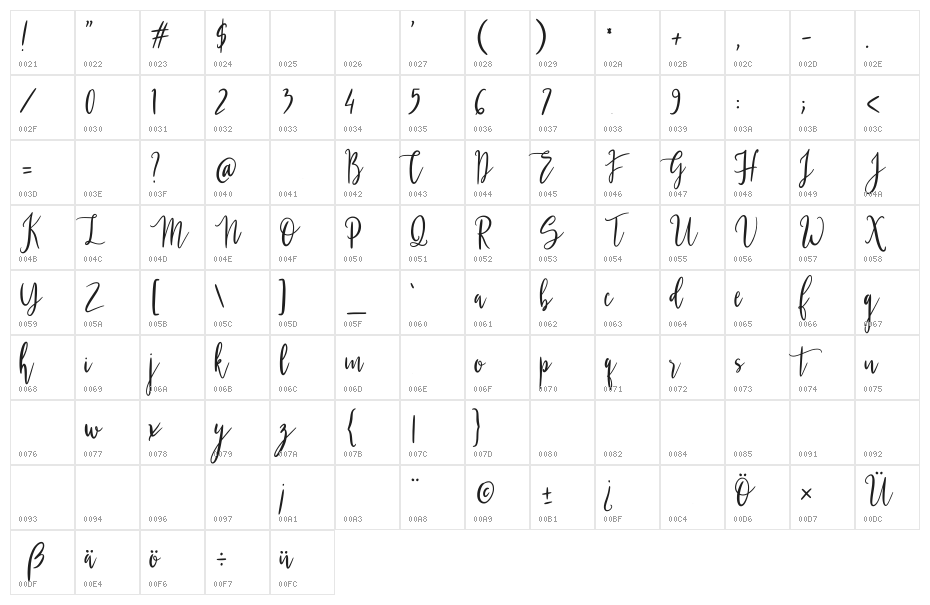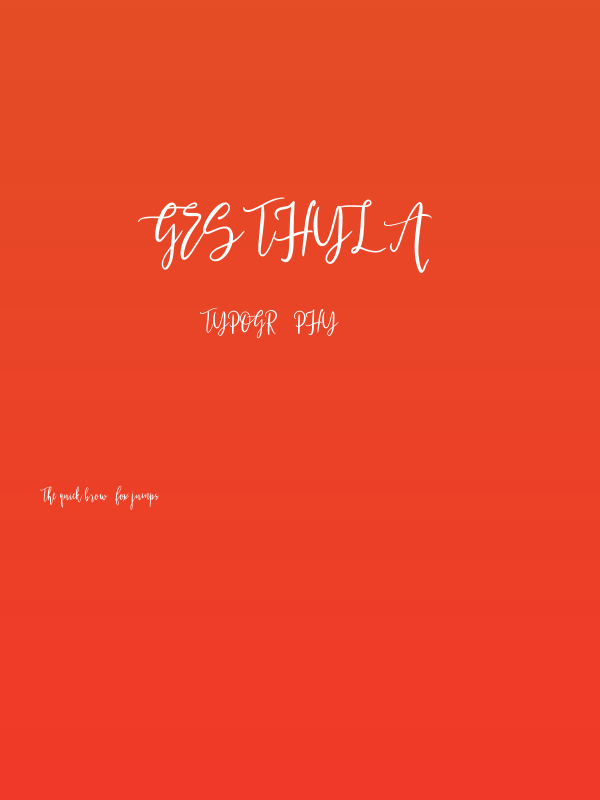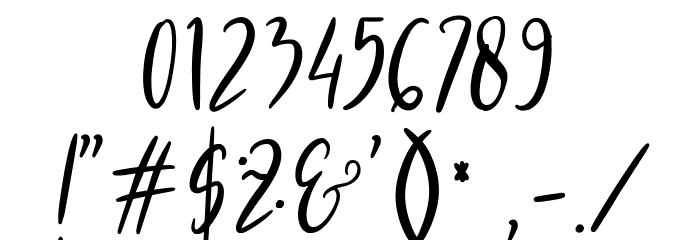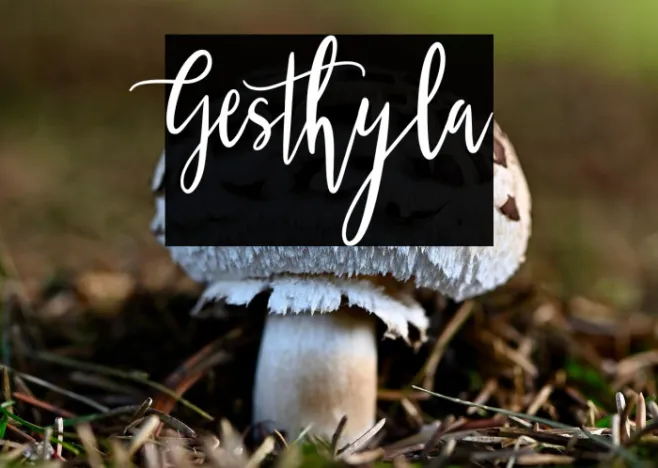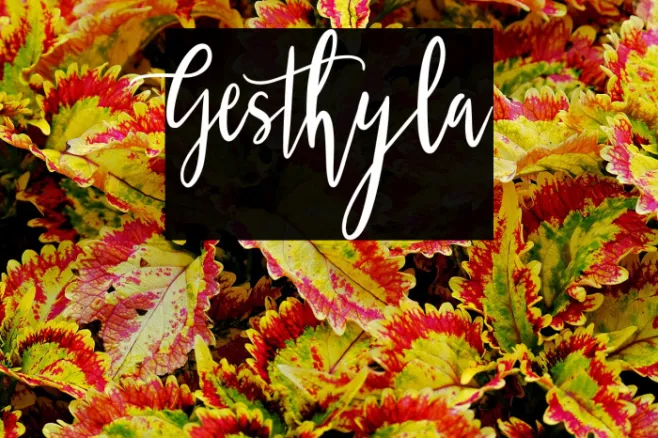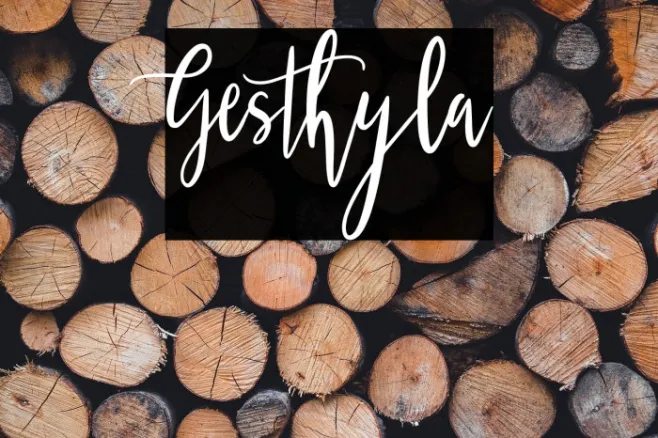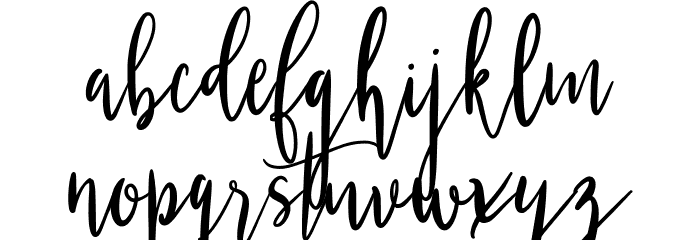
Gesthyla Font
Gesthyla Description
This font features a lively and flowing script style, characterized by its elegant and dynamic curves. The uppercase letters exhibit a graceful, sweeping motion, while the lowercase letters maintain a consistent fluidity that enhances readability. The numerals are distinct and maintain the same cursive flair, ensuring they complement the overall design. Special characters are crafted with the same attention to detail, making them seamlessly integrate with the alphabet. The font's overall appearance is both sophisticated and approachable, making it suitable for a variety of creative applications.